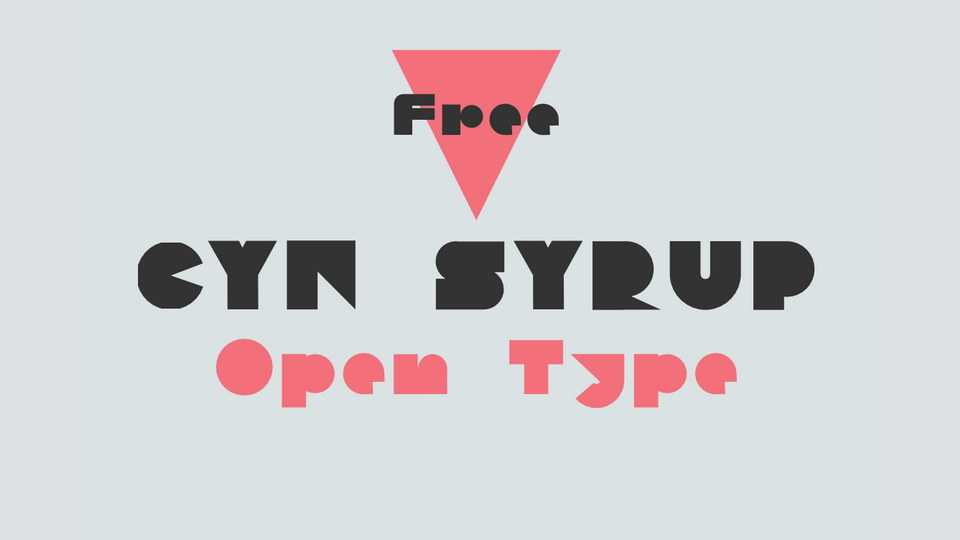
Download CYN Syrup font, a decorative display typeface based on simple geometric shapes. CYN Syrup is perfect for poster titles, record covers and extravagant print designs.
Designer: Petros Vasiadis